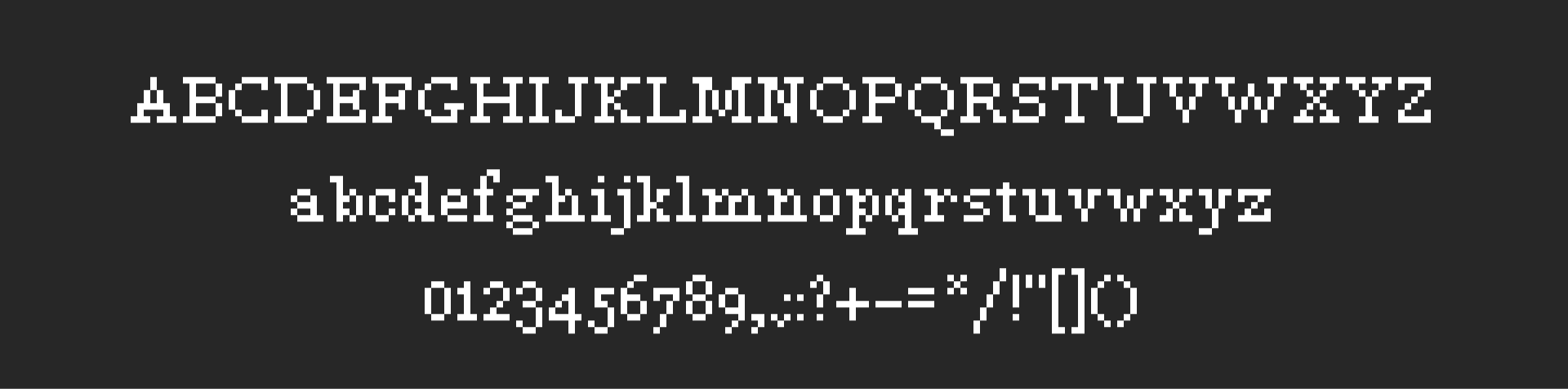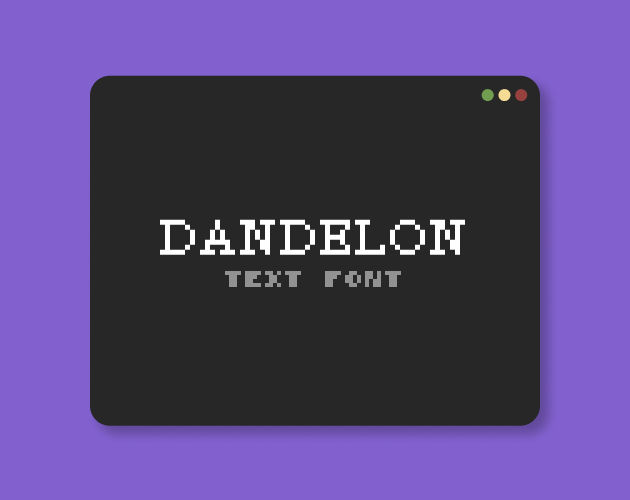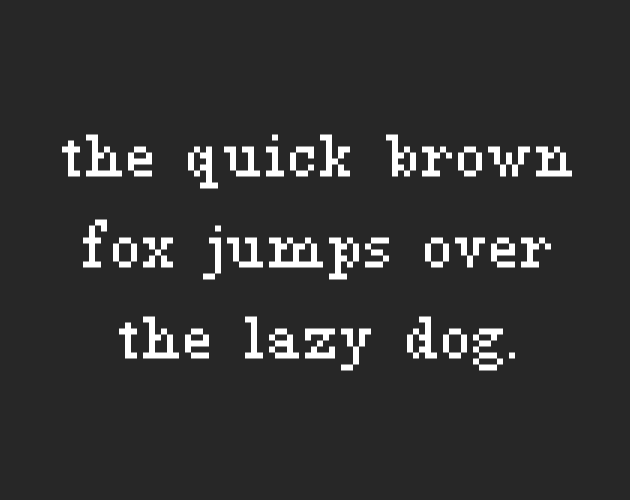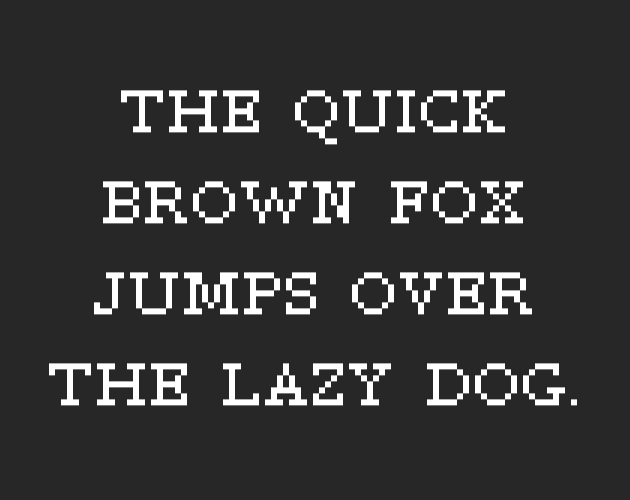
Pixel Font - DANDELON
DANDELON is a 7px tall pixel font!
Full Character Set:
ABCDEFGHIJKLMNOPQRSTUVWXYZ
abcdefghijklmnopqrstuvwxyz
0123456789,.;:?+-=*/!"[]()